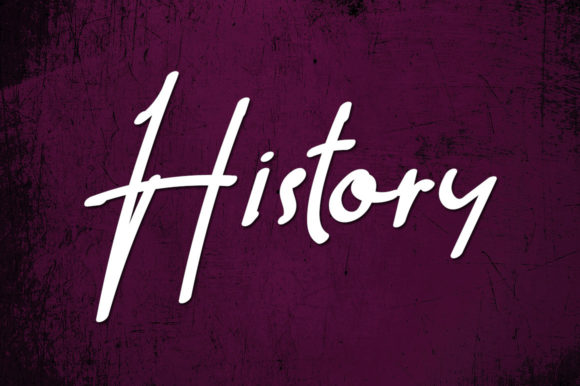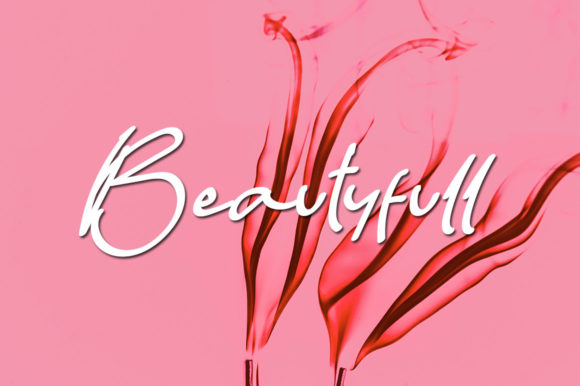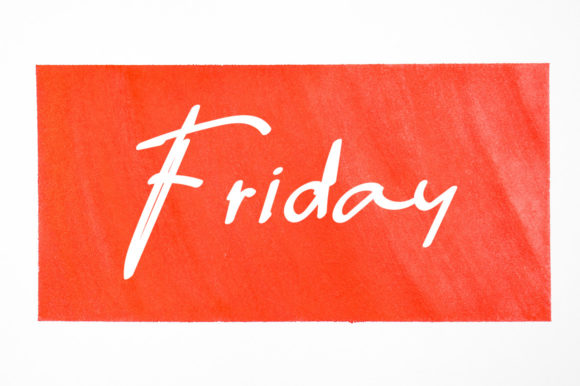
Hello Colly Font: The Perfect Addition to Your Design Arsenal
Hello Colly Font is a charming, handwritten font that has been making waves in the design community. Its unique, lettered style is reminiscent of traditional chalkboard writing, making it an excellent choice for creating visually appealing quotes, teaching materials, and more. In this article, we’ll dive into the world of Hello Colly Font, exploring its features, benefits, and uses, as well as provide tips on how to make the most of this versatile font.
The Characteristics of Hello Colly Font
Hello Colly Font is a beautifully crafted, handwritten font that boasts a cute and simple design. Its authentic look and feel are perfect for adding a personal touch to your designs, making them look more realistic and engaging. The font’s lettered style is characterized by:
• Unique lettering style: Hello Colly Font features a distinctive, handwritten style that sets it apart from other fonts.
• Chalkboard-inspired look: The font’s design is reminiscent of traditional chalkboard writing, making it perfect for creating quotes, posters, and other materials.
• Simple and easy to read: Despite its unique style, Hello Colly Font is surprisingly easy to read, making it an excellent choice for body text and headings.
Benefits of Using Hello Colly Font
Hello Colly Font offers a range of benefits that make it an attractive choice for designers and crafters. Some of the key advantages of using this font include:
• Authentic look and feel: The font’s authentic, handwritten style adds a personal touch to your designs, making them look more realistic and engaging.
• Versatility: Hello Colly Font can be used for a wide range of projects, from chalkboard quotes and teaching materials to posters, flyers, and more.
• Ease of use: The font is surprisingly easy to read, making it an excellent choice for body text and headings.
• Time-saving: With Hello Colly Font, you can create professional-looking designs in no time, saving you hours of work and effort.
Uses of Hello Colly Font
Hello Colly Font is an incredibly versatile font that can be used for a wide range of projects. Some of the most popular uses of this font include:
• Chalkboard quotes: The font’s chalkboard-inspired look makes it perfect for creating eye-catching quotes and posters.
• Teaching materials: Hello Colly Font is an excellent choice for creating teaching materials, such as worksheets, lesson plans, and more.
• Posters and flyers: The font’s unique style makes it perfect for creating visually appealing posters and flyers.
• Social media graphics: Hello Colly Font can be used to create engaging social media graphics, such as Instagram posts and Facebook updates.
Tips for Using Hello Colly Font
To get the most out of Hello Colly Font, here are some tips to keep in mind:
• Experiment with colors: The font’s chalkboard-inspired look lends itself well to bold, bright colors. Experiment with different color schemes to find the one that works best for your design.
• Mix and match: Don’t be afraid to mix and match Hello Colly Font with other fonts to create a unique look.
• Keep it simple: While Hello Colly Font is a versatile font, it’s best to keep your design simple and uncluttered to let the font shine.
Hello Colly Font is a charming, handwritten font that is perfect for designers and crafters looking to add a personal touch to their designs. Its unique, lettered style and authentic look and feel make it an excellent choice for creating visually appealing quotes, teaching materials, and more. With its versatility, ease of use, and time-saving benefits, Hello Colly Font is an excellent addition to any design arsenal.